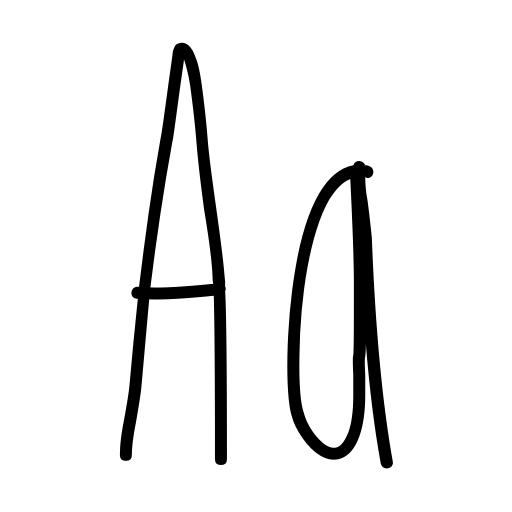
Bookworm Font is a casual, handwritten-style sans serif with a light weight and airy feel, featuring playful, rounded letterforms and a tall x-height that enhances readability. Its friendly and approachable personality makes it perfect for creative projects, children’s books, or informal branding that seeks a warm, personal touch. This font works well in headlines and short texts where a relaxed, charming vibe is desired.
Bookworm Font
About Bookworm Font